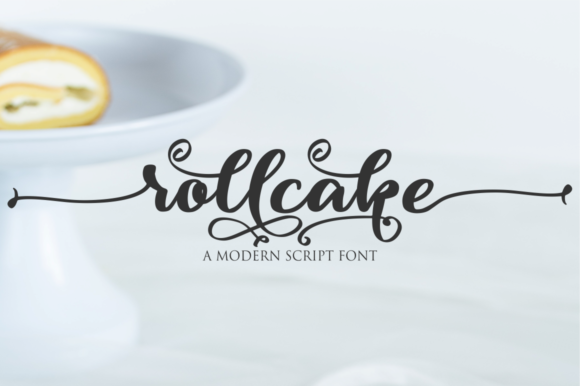
Prepare to be swept away by Rollcake Font, the epitome of elegance and charm! This exquisite script font, a modern-day ode to timeless calligraphy, will captivate your senses with its undeniable grace.
Crafted with meticulous precision, Rollcake's enchanting baseline, flowing lines, and captivating glyphs will evoke a touch of sophistication to any design endeavor. Whether it's the branding of your dreams, eye-catching headings, or the most romantic wedding invitations, Rollcake promises to elevate your creations to unparalleled heights.
Immerse yourself in the world of Rollcake and discover a treasure trove of stunning alternates, perfect for adding a touch of uniqueness to your designs. Its versatility knows no bounds, lending itself effortlessly to logos, labels, and countless other projects.
Don't resist the allure of Rollcake Font. Let its enchanting charm inspire your creativity and transform your designs into works of art. Embrace the power of this exceptional font and watch as your projects blossom into masterpieces!